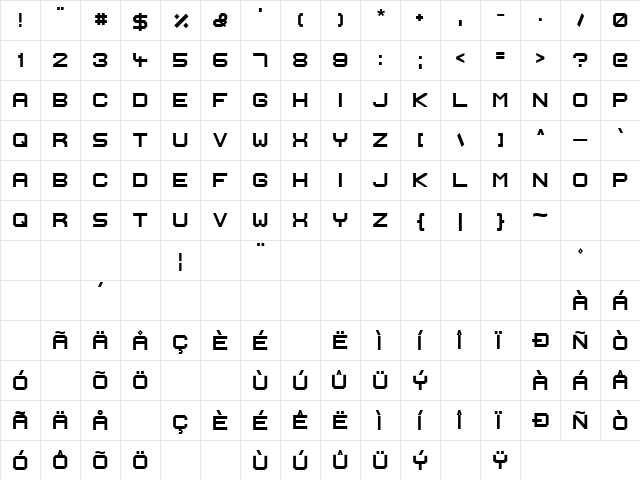
Ignis et Glacies Extra Sharp Bold
| Designer | Zdenek Gromnica aka FutureMillennium |
Design Context for Ignis et Glacies Extra Sharp Typeface
Ignis et Glacies Extra Sharp offers clean, dependable letterforms without strong stylistic allegiance, making it a practical choice for designers who need flexibility. Its bold stroke weight gives it real presence on the page.